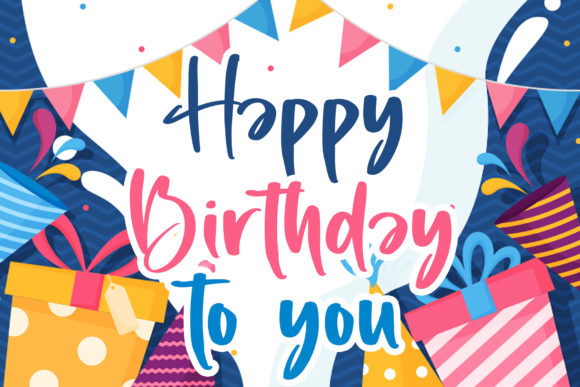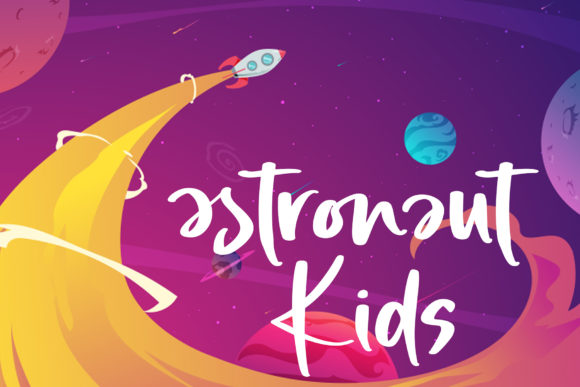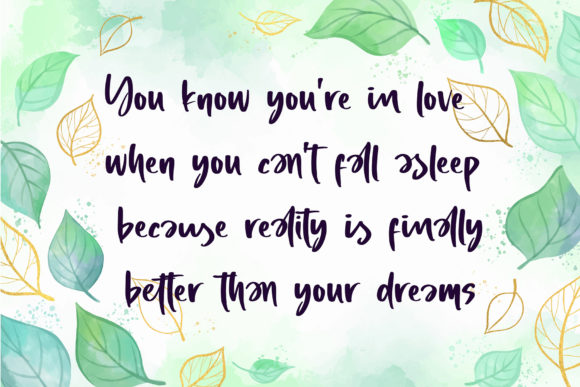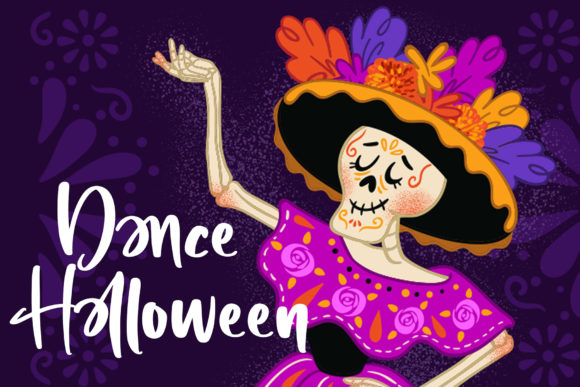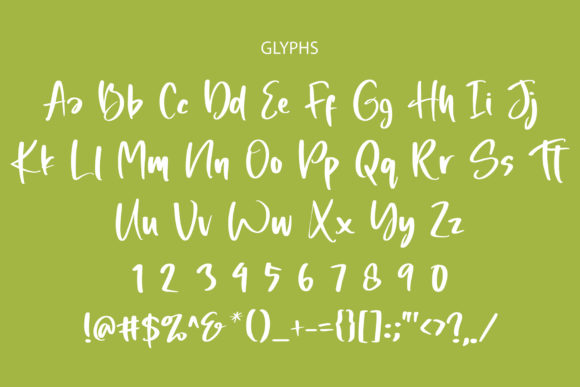
The Perfect Party Invitation: Unleashing the Magic of Hello Party Font
Have you ever stared at a blank page, waiting for inspiration to strike? That’s exactly what happened to me last weekend, when I was brainstorming ideas for a friend’s birthday party. As I scribbled down random notes and doodles, I realized that the key to capturing the excitement and playfulness of the party was in the font. That’s when I discovered Hello Party Font – a simple yet charming handwritten font that would take my party invitations from bland to grand.
Hello Party Font is a versatile and casual font that’s perfect for branding projects, social media posts, and even product packaging. Its warm and inviting style makes it a valuable asset for designers looking to add a personal touch to their designs. With Hello Party Font, you can create eye-catching logos, flyers, and advertisements that are sure to grab attention.
Hello Party Font Key Features
- Font Style: Hello Party Font is a playful, cursive script font designed for creating eye-catching and festive designs.
- Unique Characteristics: The font features swashes, ligatures, and ornaments that add a touch of elegance and sophistication to designs.
Hello Party Font Review
As a designer, I was excited to dive into the “Hello Party Font” and see if it lives up to its name. Overall, I’d say it’s a solid choice for those looking for a fun, playful font. Here’s what I liked:
- ✨ The font has a great balance of elegance and playfulness, making it perfect for party invitations, social media graphics, and other festive content.
- ✨ The font is highly customizable, allowing you to adjust the size, color, and spacing to fit your design needs.
- ⚠️ The font may not be the best choice for formal or professional content, as it’s a bit too playful and whimsical.
- ⚠️ The font can be a bit overwhelming if used in large blocks of text, so be sure to use it sparingly.
- ⚠️ Some users may find the font’s quirks and irregularities to be a bit too much to handle.
Overall, I’d say the “Hello Party Font” is a great choice for designers looking for a fun and playful font to add some excitement to their designs. Just be sure to use it wisely and consider its limitations.
Use the “Hello Party Font” for playful and eye-catching designs.
Pair it with bold and colorful graphics to create a festive atmosphere.
Experiment with different font sizes and styles to add visual interest.
Wedding invitations and decorations
Party banners and flyers
Children’s birthday party designs